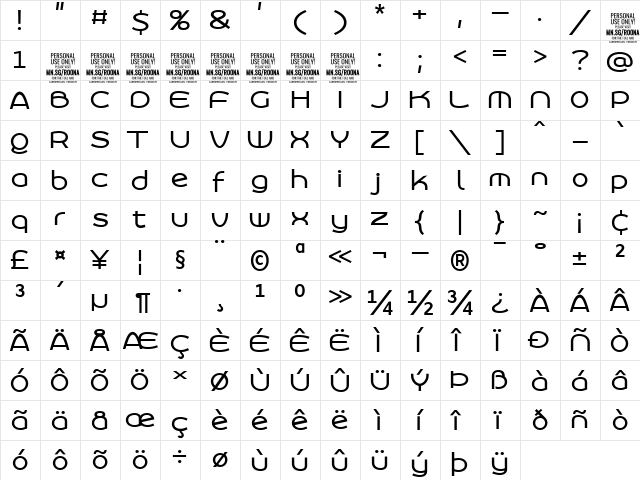
Roona Sans Medium PERSONAL Regular
| Foundry | Mans Greback |
| Designer | Mans Greback |
Design Context for Roona Sans Medium PERSONAL Typeface
Roona Sans Medium PERSONAL is a composed and adaptable typeface that performs quietly and consistently across a wide range of design contexts.